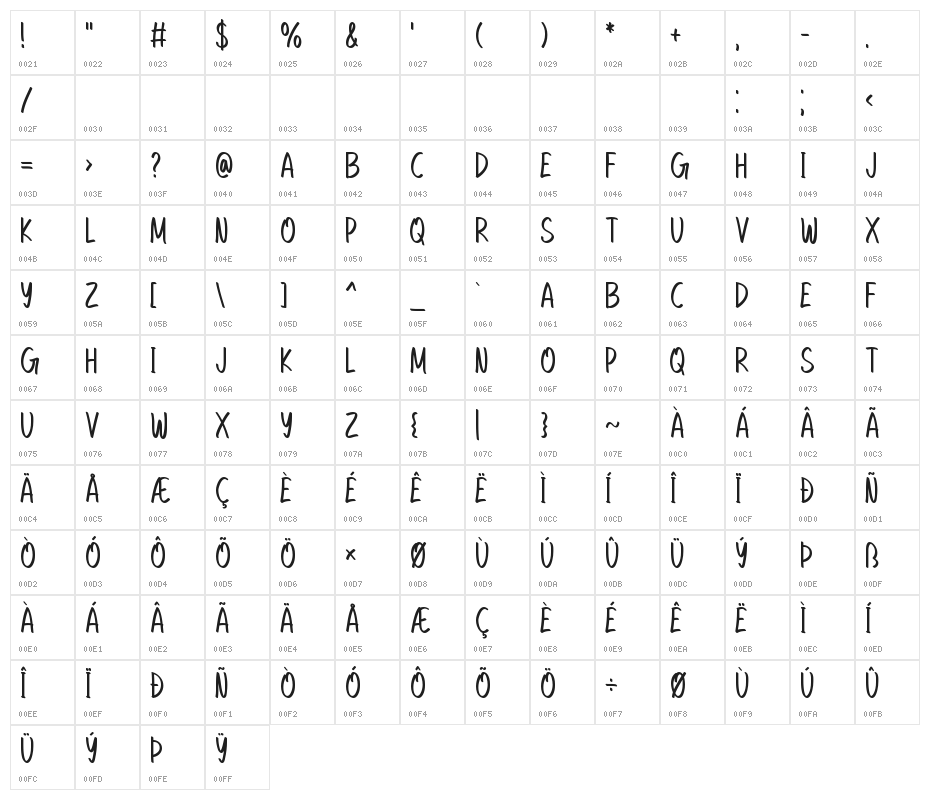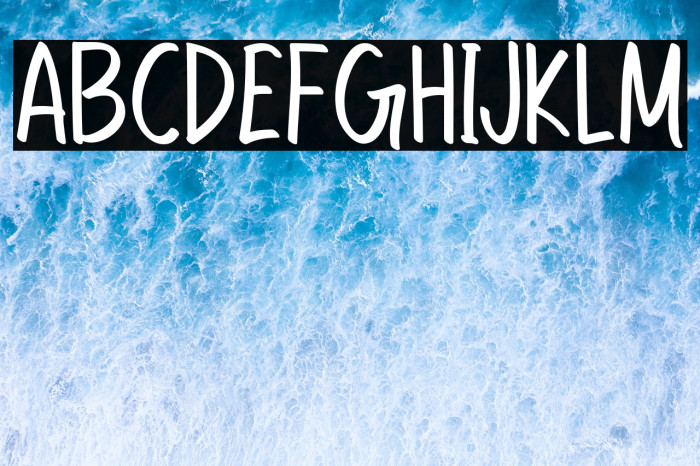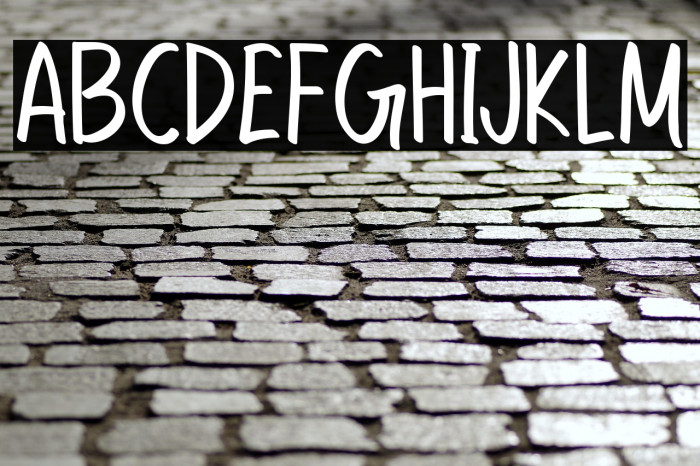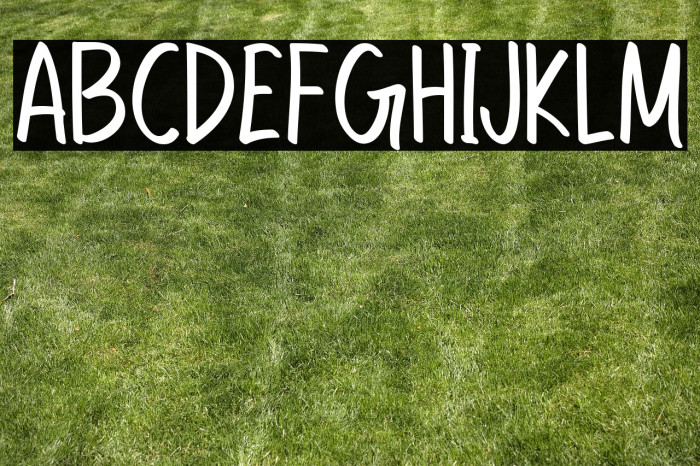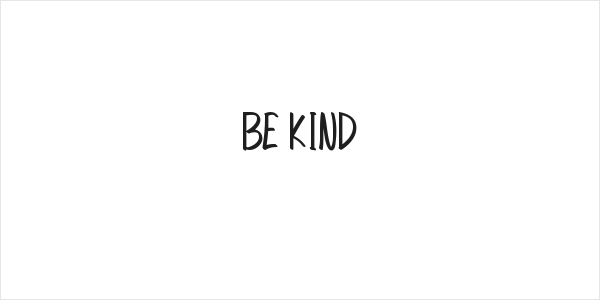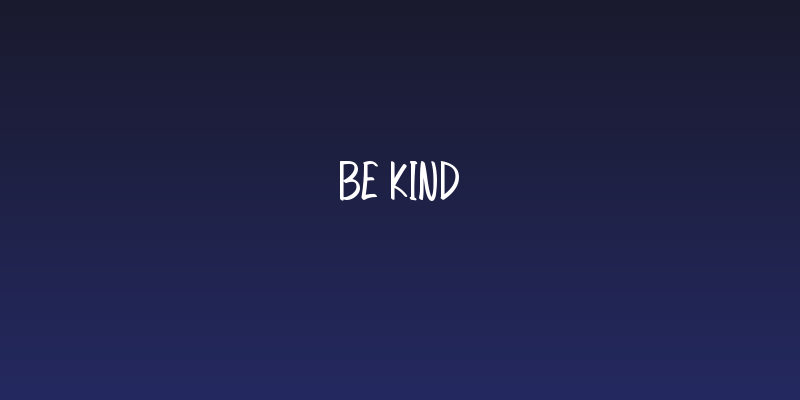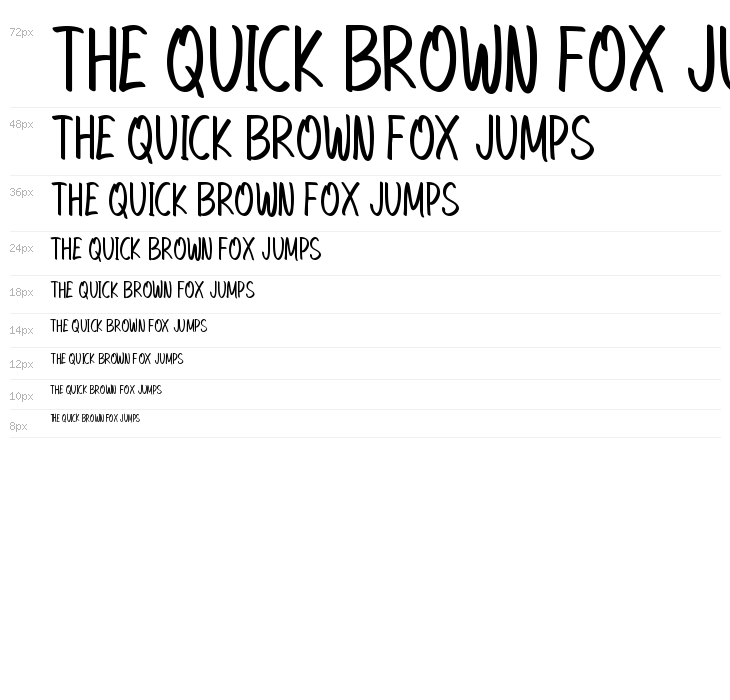
Be Kind Font
Be Kind Description
This playful and friendly font features a handwritten style with a casual, approachable feel. The characters are slightly elongated, giving them a unique and whimsical appearance. The strokes are consistent in thickness, providing a uniform look across all letters. The font includes both uppercase and lowercase letters, as well as a variety of special characters, making it versatile for different uses. Its informal style makes it perfect for projects that require a personal touch, such as invitations, greeting cards, or playful branding materials.
| Use Case | Headlines, Informal text, Personal projects |
| Proposed Projects | Ideal for invitations, greeting cards, playful branding, and personal projects. |